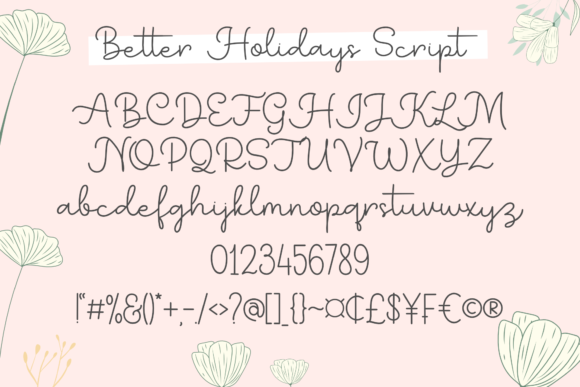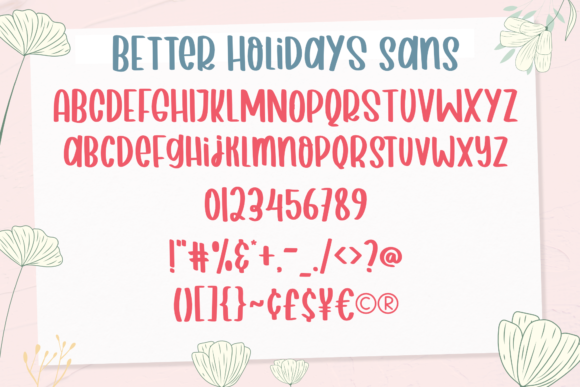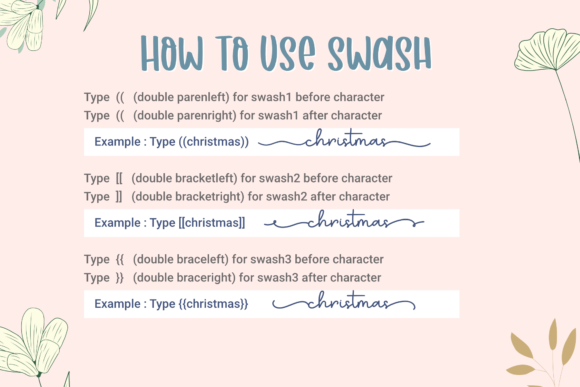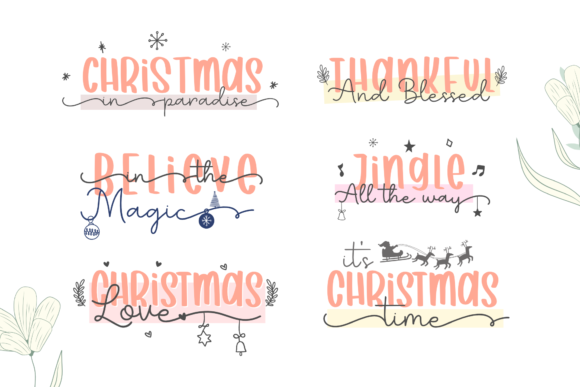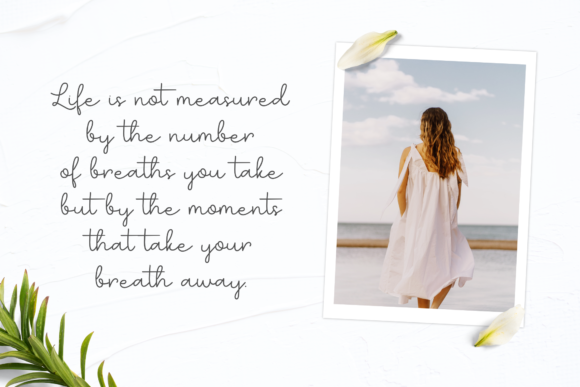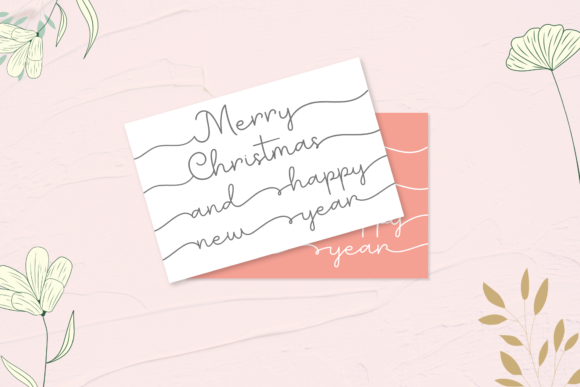
Better Holidays Font
About Better Holidays Font
Better Holidays consists of two fonts designed to complement each other perfectly. Together or apart, these fonts are ideal for adding a chic and cheery touch to your crafts. This font is PUA encoded which means you can access all glyphs and swashes with ease!